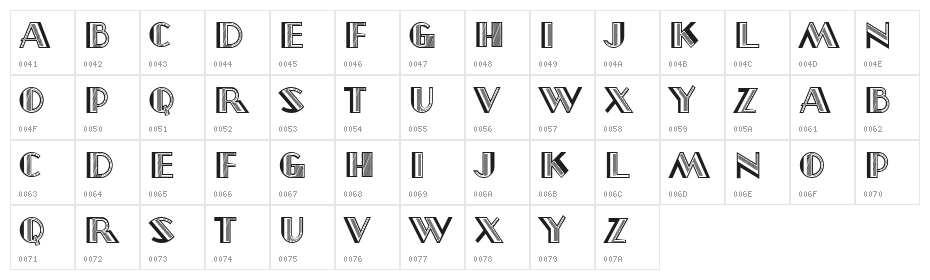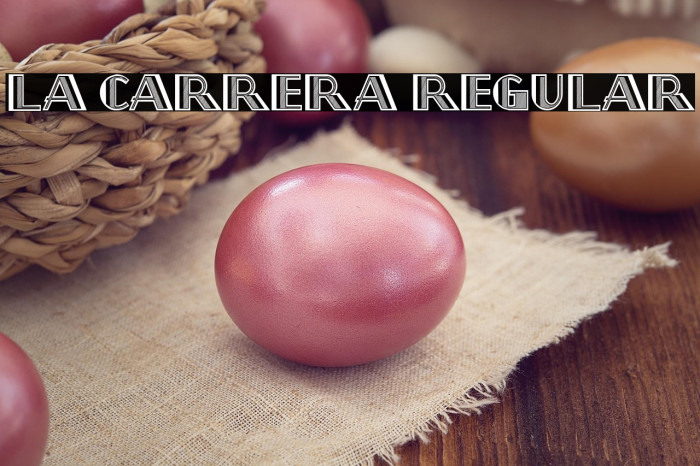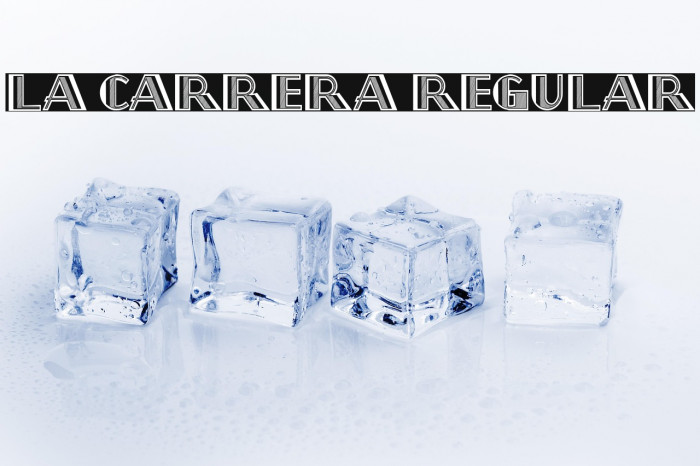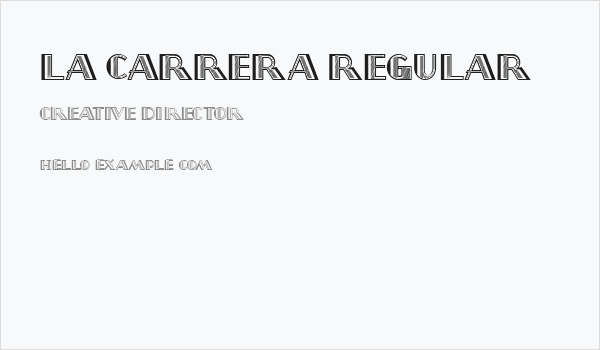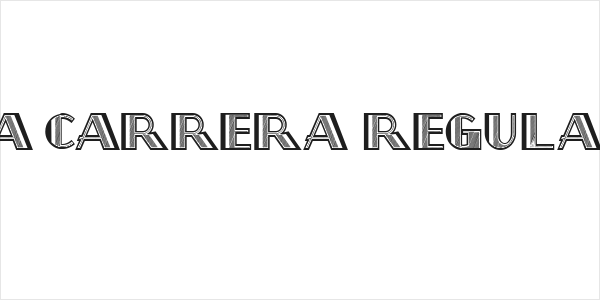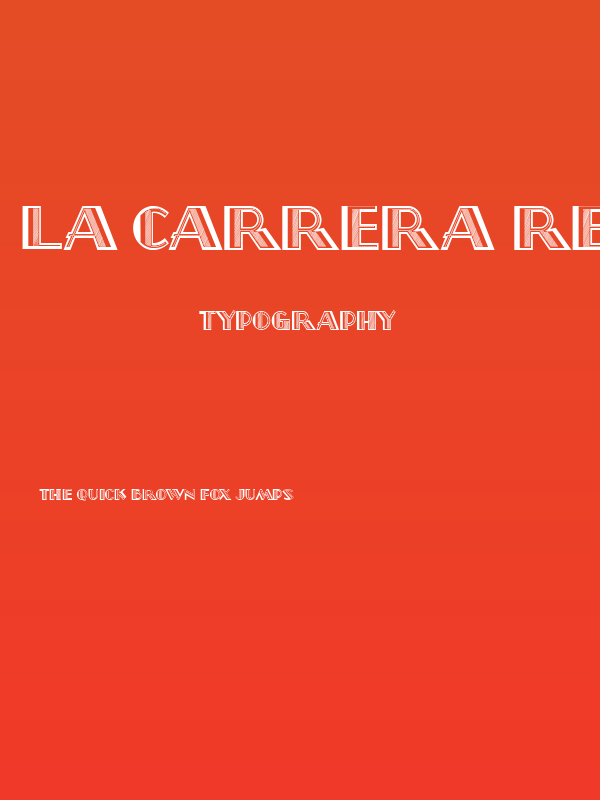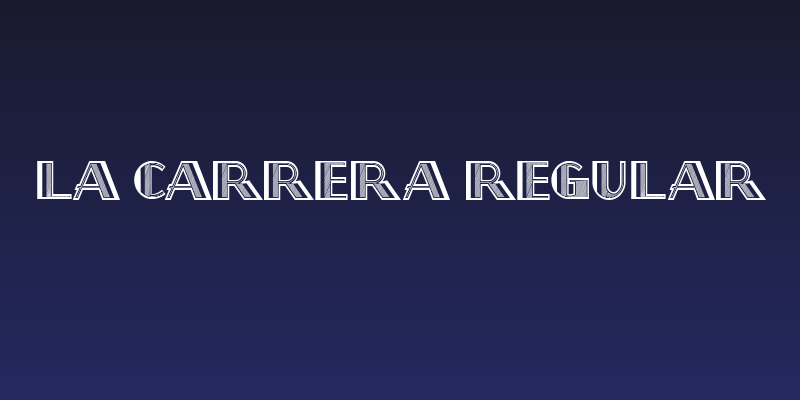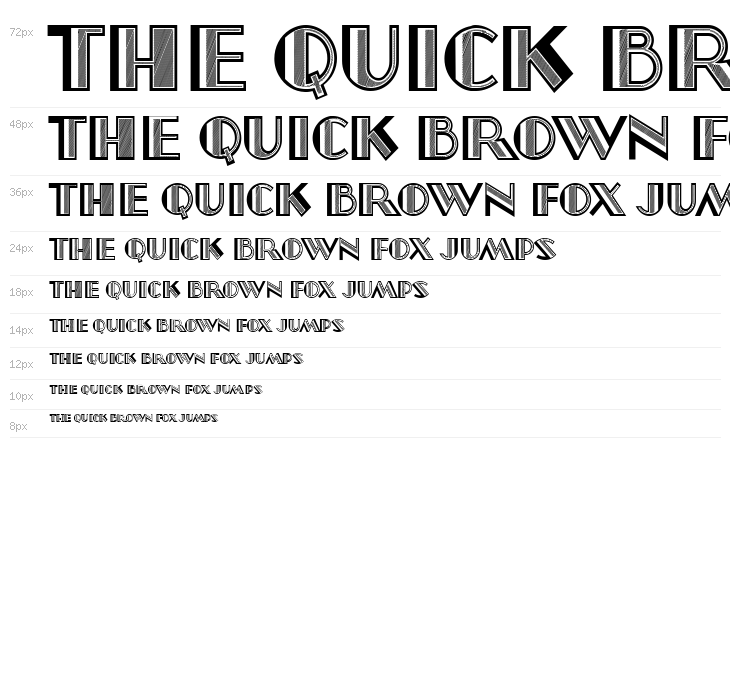
La Carrera Regular Font
La Carrera Regular Description
This font features a bold and dynamic design with a strong geometric influence. Each letter is crafted with a combination of solid and outlined strokes, creating a sense of depth and movement. The angular shapes and sharp edges give it a modern and edgy appearance, making it stand out in any design. The font's unique style is reminiscent of racing or sports themes, with its sleek and fast-paced aesthetic. The uppercase letters are particularly striking, with their bold presence and intricate detailing. This font is perfect for projects that require a strong visual impact and a contemporary feel.
| Proposed Projects | Ideal for sports branding, automotive designs, posters, and dynamic headlines. |